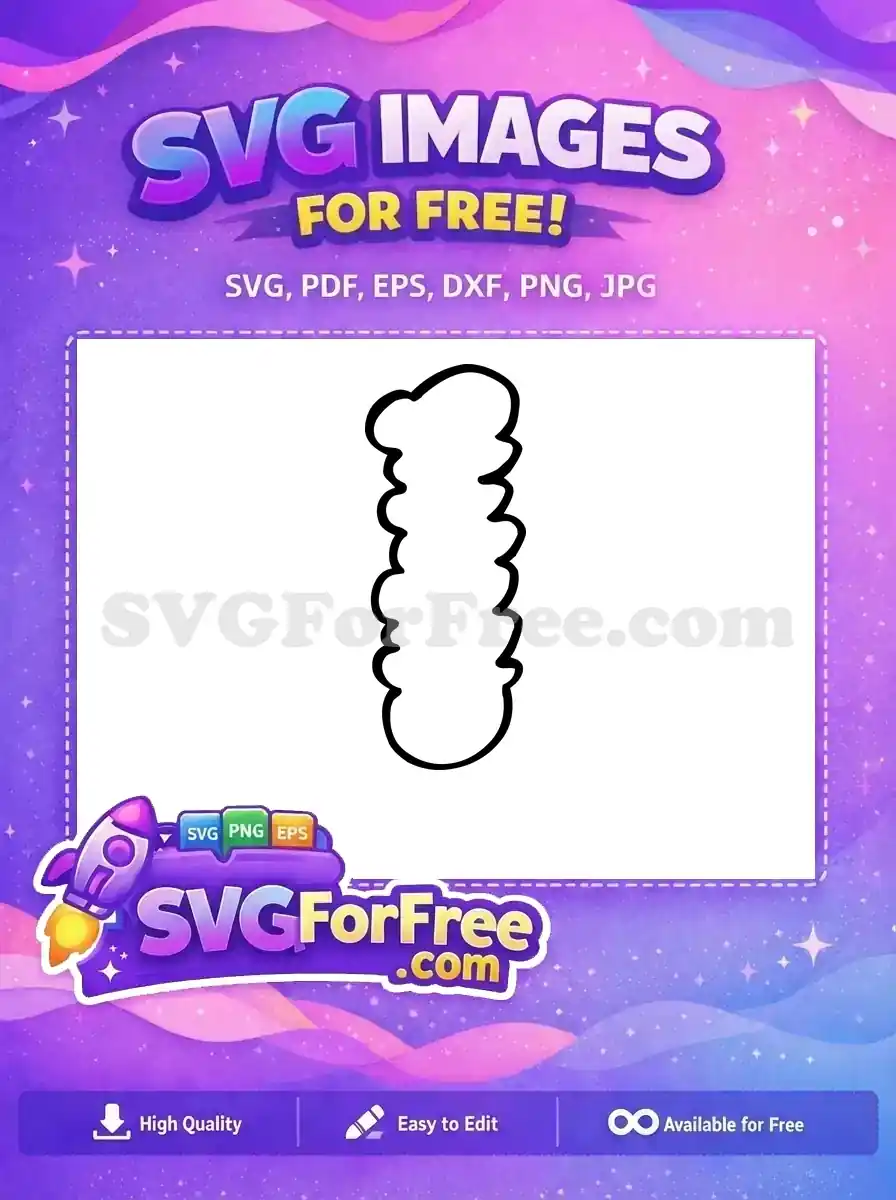
Free Letter I Font Free Alphabet Initial Free SVG 1 – Instant Download
Cloud theme letter I vector available for free.
Free Letter I Font Free Alphabet Initial Free SVG 1